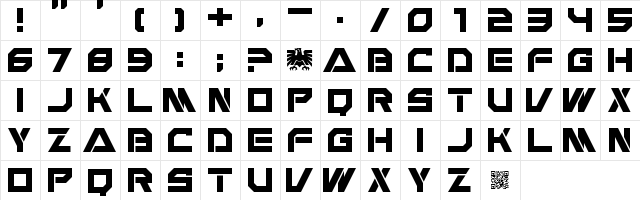
USPF Liberty Regular
Design Context for USPF Liberty Typeface
USPF Liberty is a composed and adaptable typeface that performs quietly and consistently across a wide range of design contexts.